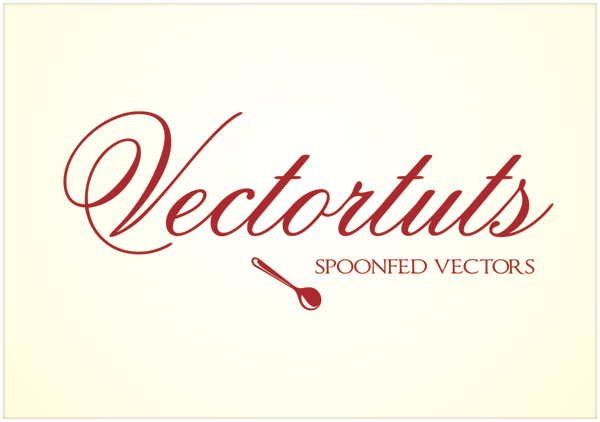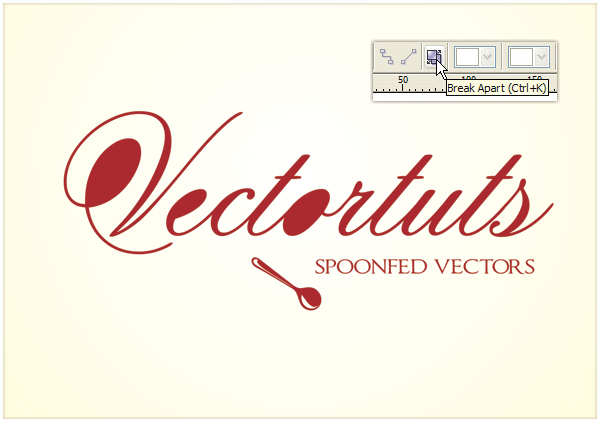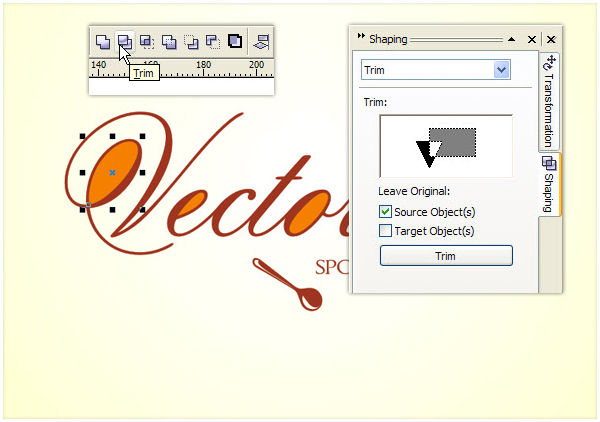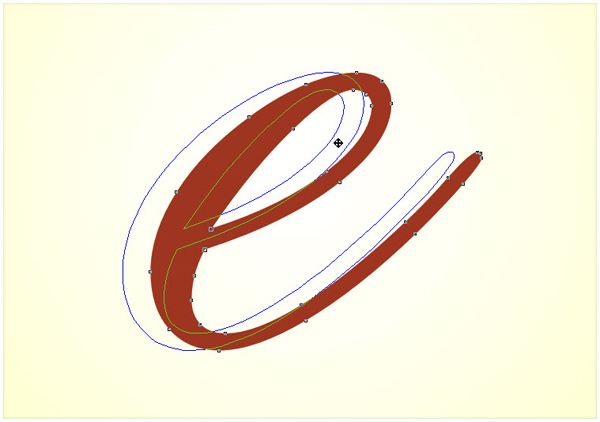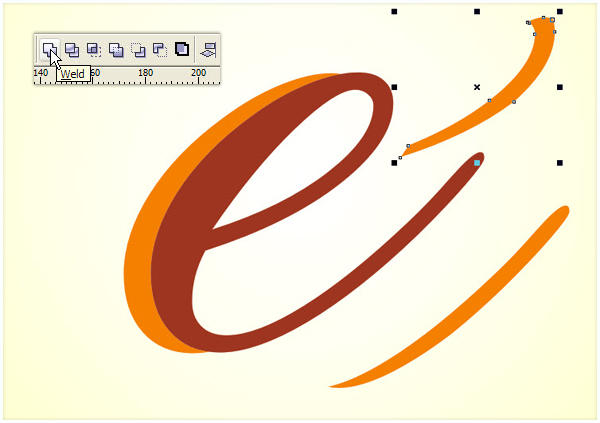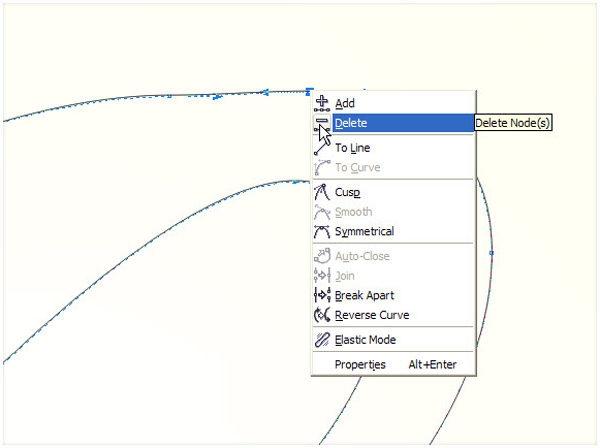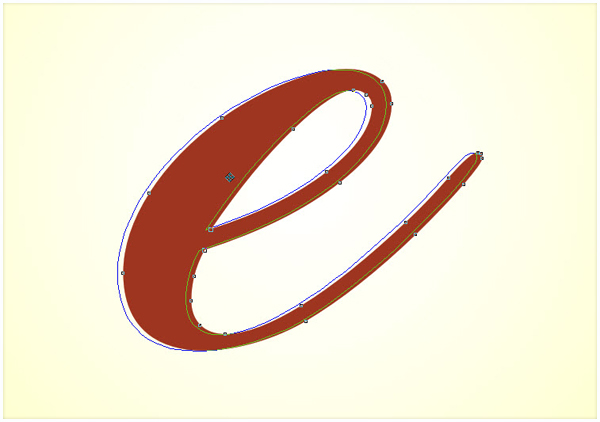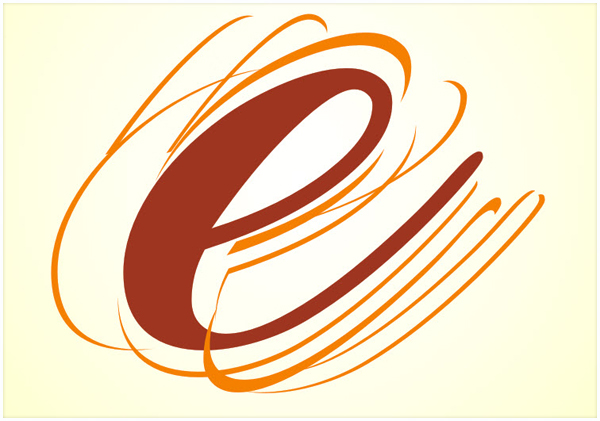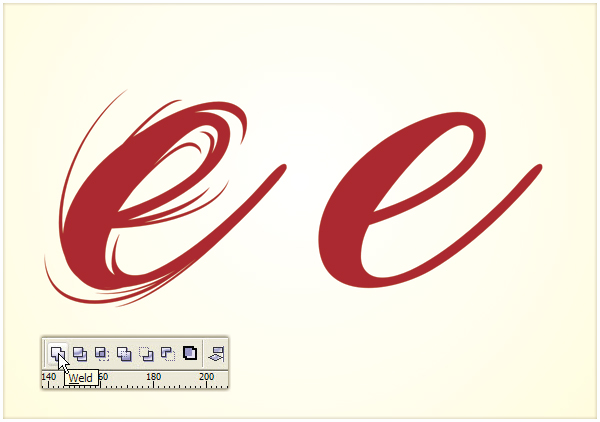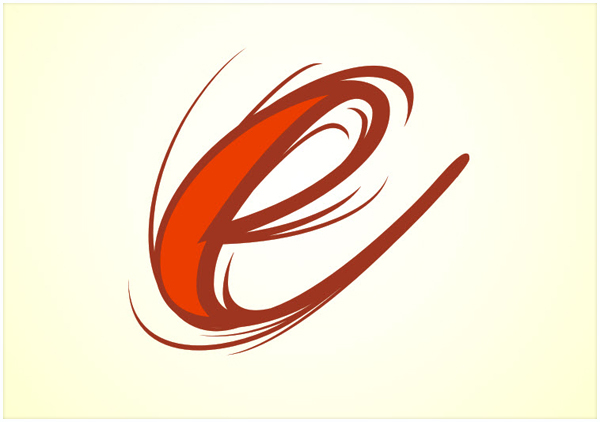
How to Add Decorative Glamour to Your Ordinary Script Font
Sometimes you need to go a little bit wild with your typography. In these cases, you can either take the easy way and choose a fancy font from some of the free font site like Dafont or Urban Fonts, or get creative and give some extra sparkle to your ordinary font, creating a typographic design which can stand by itself. This tutorial, discusses this later option. Beware of the following boolean operations galore!
For this tutorial, I used CorelDRAW but the techniques discussed apply for most vector editing software.
Step 1 - Type, Organize, and Choose the Font
Find the relationships in your copy and organize the text accordingly. For this tutorial, I've chosen a calligraphic font called Old Script from dafont.com, but any script font will do.
Step 2 - Convert to Curves and Break Apart
To modify the font we will need curves. Select your text and press Command + Q (convert to curves) and then press Command + K or use the Break Apart icon form the Property Bar, to break apart the components of the font. Since inner parts are separate elements we need to trim them from the rest of the character.
Step 3 - Trim Inner Parts
Shift-select the inner (I've altered their color to orange) and the outer parts of a character and press trim on the Property Bar. If you want to have more control over boolean operations, then you can turn on the Shaping docker from the Window menu. Then select the source object, press Trim, and select the target object with the special cursor.
Sometimes after the break apart operation the inner parts go behind the outer parts. In this case, select the outer part and press Shift + Page Down to send it to the back. It is always a good idea to have two different colors for boolean operations.
Step 4 - Give Some Flesh to the Characters
Select an individual letter and drag away. Before releasing your button, click with the right button and you will get a copy of the original shape. Repeat the copy operation, but this time move the copy to the left a little bit to have two overlapping shapes.
Step 5 - Trim and Break
Select the two overlapping copies and click the Trim icon on the toolbar. Select the resulting shape and press Command + K to break apart.
Step 6 - Weld
Move away some of the resulting shapes to the right and weld the rest. The goal is to achieve a more dynamic look by increasing the difference between the thick and thin parts of the character. I find steps 4-6 the easiest way, but you can use any other techniques to achieve the desired alteration.
Step 7 - Clean Up Messy Curves
Remove unneeded nodes to have a clean flowing curve. Select the Shape Tool (F10) and right-click on a point, then select Delete from the context menu, or simply double-click the node with the Shape Tool. After a boolean operations, always check for stray segment and undesired nodes.
Step 8 - Glamorizing Begins
Make a copy of the character by moving it to the left, but just a tiny bit. Select the resulting shapes and press trim in the Property Bar. Repeat the copy and trim operation to the right, up and down.
Always move away the resulting chips and break them apart (Command + K). These small shapes will be the building bricks of the look we're creating.
Step 9 - The Creative Part
Arrange the chips so that they overlap the original object. Rotate, scale, or duplicate them in a creative way, until you're satisfied with the outcome.
Make an extra copy of the original shape for later use. Select the original shape and the chips and weld them by pressing the Weld icon on the Property Bar.
Step 10 - Let There Be Highlight
Pick the Interactive Contour Tool by pressing longer on the Effects Tool on the toolbar. In the properties bar, choose Inner contour, Number of steps 1, and a small offset depending on the size of your character. From the Arrange menu choose Break Contour Group Apart.
Step 11 - Finishing the Highlight
Pick the resulting object, clean it up, and position somewhere towards the top-left part of your character.
We are almost there. Make one more highlight if you wish following Steps 11-12.
Step 12 - The Tedious Part
Repeat Steps 4-12 on all the characters.
Step 13 - Bring it All Together
Using the original text as a template move the modified characters to their place.
Get creative on the initials and use swirls and swashes derived from the characters to make the design coherent.